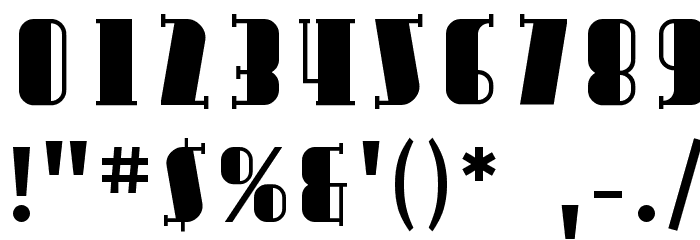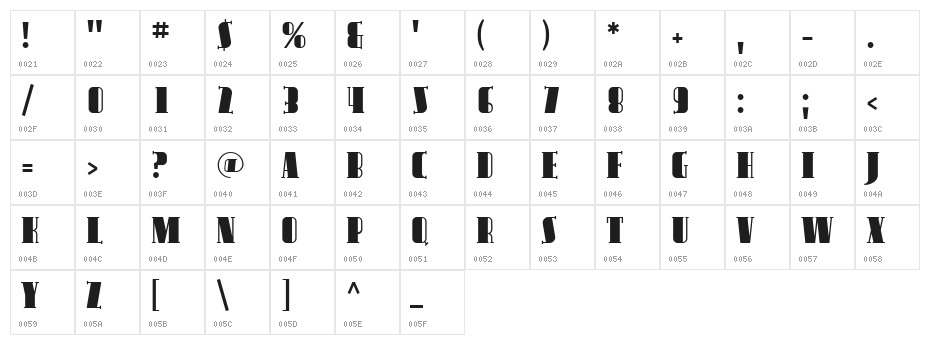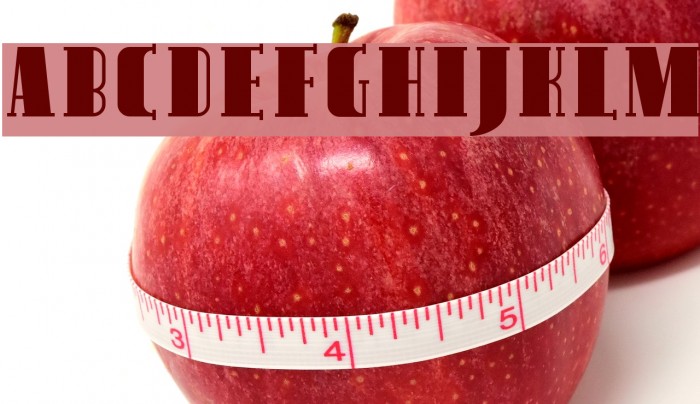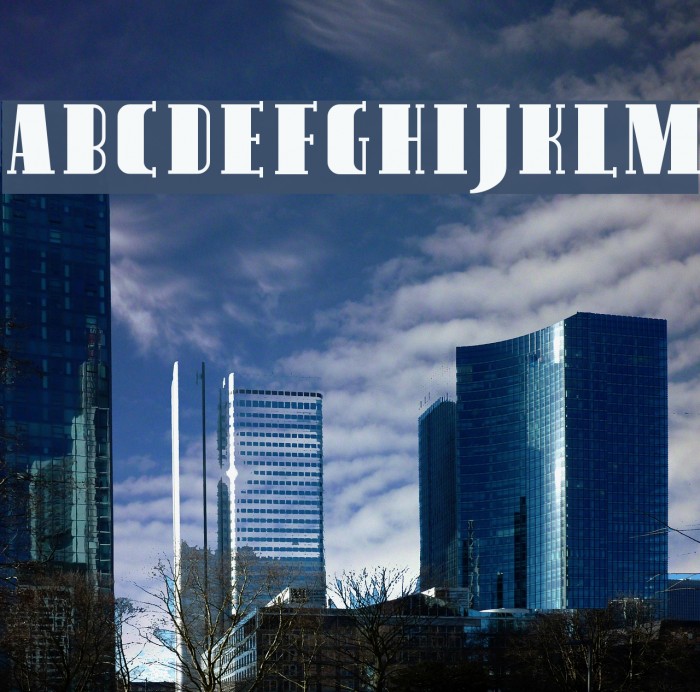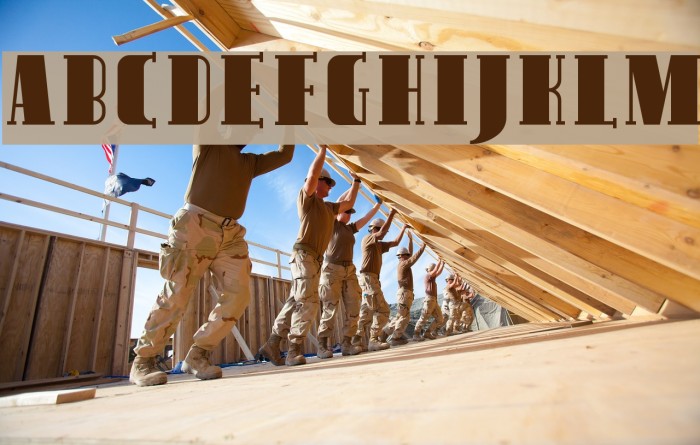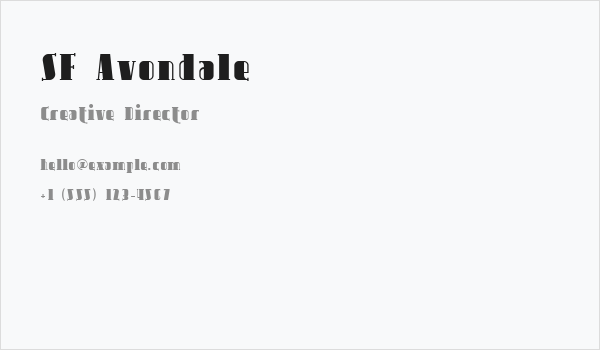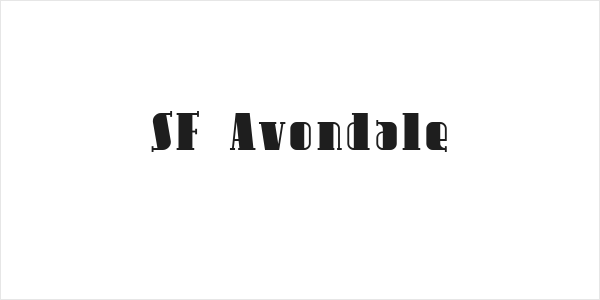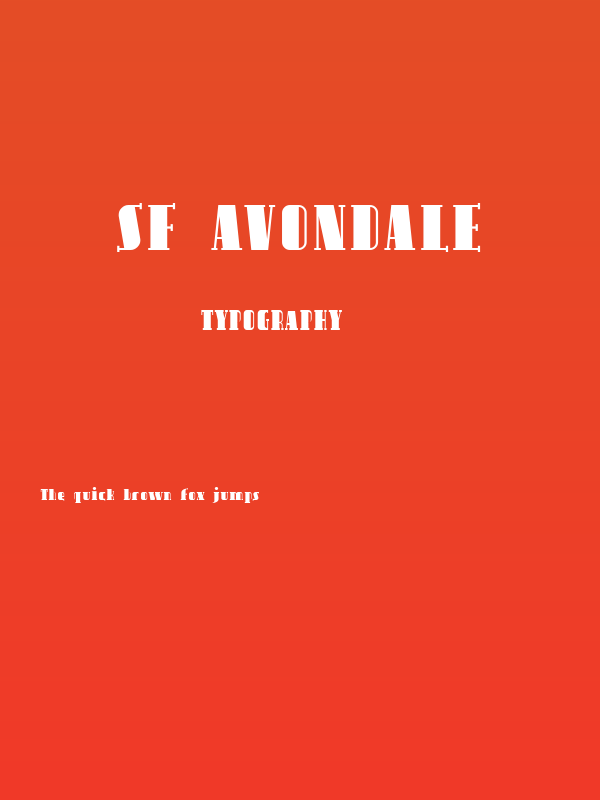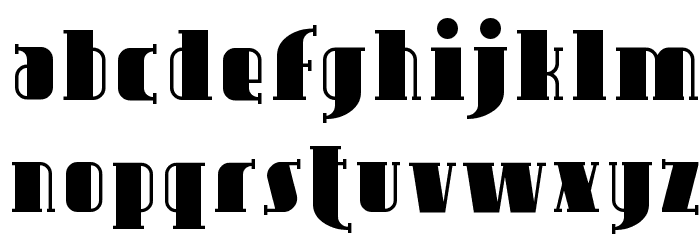
SF Avondale Font
SF Avondale Description
This font features a bold and striking design with strong vertical emphasis and distinct serifs. The uppercase letters are tall and commanding, while the lowercase letters maintain a consistent style with slightly rounded edges. The numerals are equally bold, ensuring readability and impact. Special characters are designed to match the overall aesthetic, making them suitable for various applications. The font's unique style is characterized by its high contrast between thick and thin strokes, giving it a dynamic and modern appearance.
| Proposed Projects | Ideal for headlines, posters, branding, and any project requiring a bold statement. |